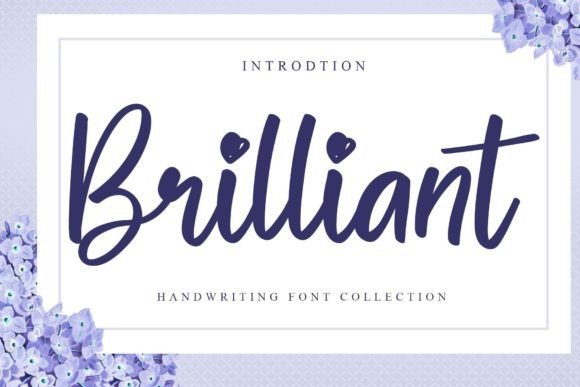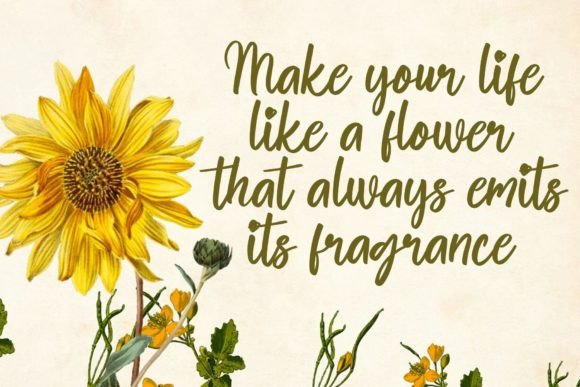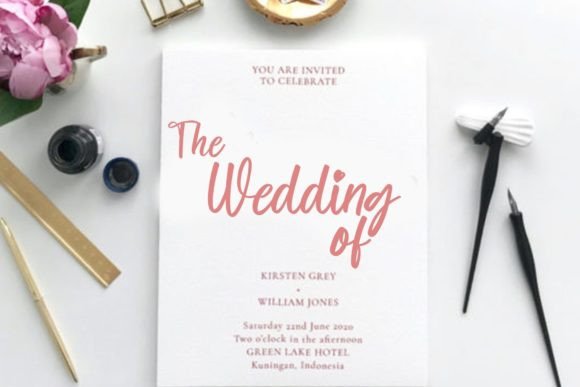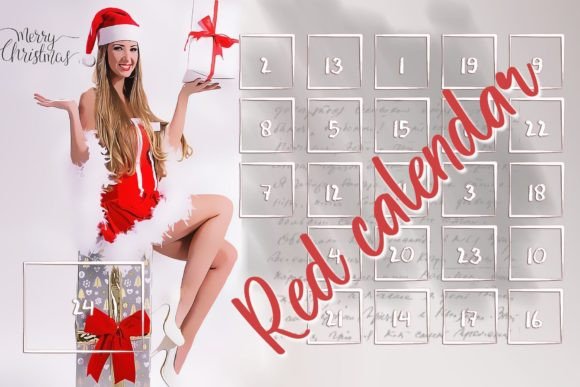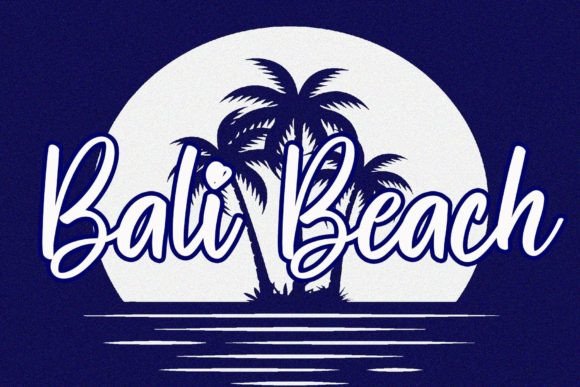
Brilliant Font
About Brilliant Font
Brilliant is a font that radiates a cool, simple, and playful vibe, making it a versatile choice for a variety of design projects. Its effortless charm and unique style elevate designs, infusing them with a fresh and lively energy. Whether you’re working on branding, packaging, social media graphics, posters, or any other creative endeavor, Brilliant adds a touch of creativity and sophistication.
The font’s simplicity is its strength, allowing for easy readability while maintaining a playful and casual feel. Its handwritten aesthetic adds a personal touch to your designs, making them more relatable and engaging to your audience. Brilliant’s clean and clear characters make it suitable for a wide range of applications, from digital media to print materials.
One of the standout features of Brilliant is its versatility. Its adaptability to different design contexts ensures that it can enhance a diverse range of projects. Whether you’re designing for a youth-oriented brand, a fun event, or a trendy product, Brilliant complements the overall theme, adding a touch of fun and vibrancy.
Incorporating Brilliant into your favorite creative projects allows you to witness how it breathes life into your designs. Its playful and lively nature adds a sense of excitement, making your creations come alive with energy and enthusiasm. Whether you’re creating a playful logo, eye-catching posters, or engaging social media posts, Brilliant is the font that injects a dose of creativity into your designs.
Embrace Brilliant as your go-to font for infusing your projects with a cool and playful vibe. Its simplicity, versatility, and playful charm make it a valuable asset in your creative toolkit. Notice how it transforms your favorite creative endeavors, making them dynamic, lively, and full of character, leaving a lasting impression on your audience.